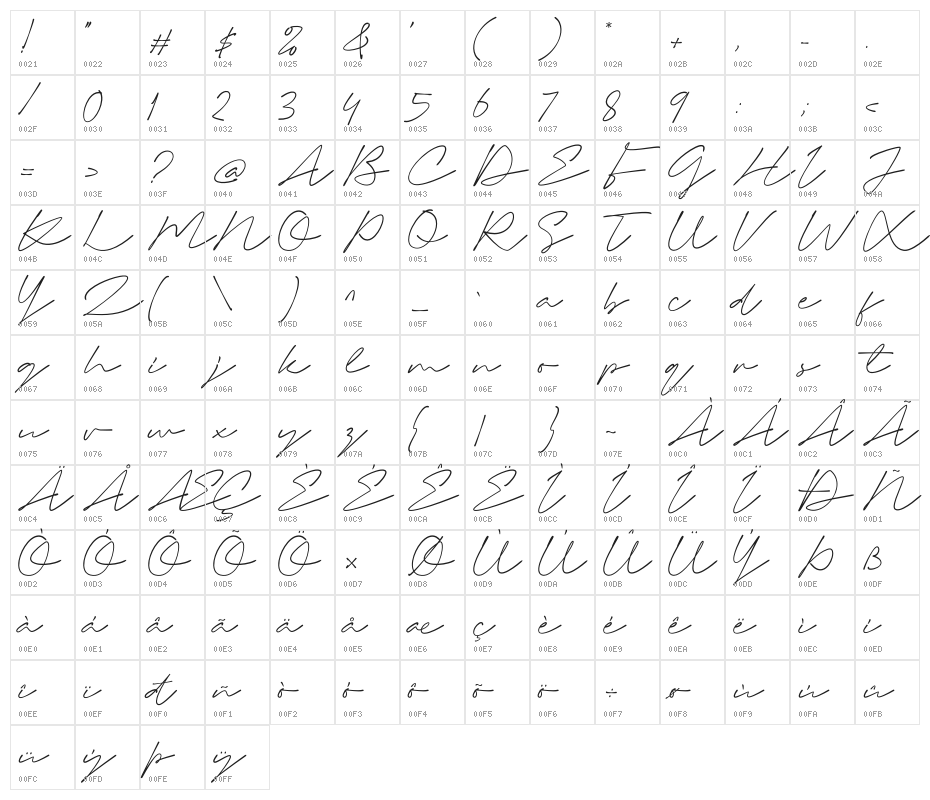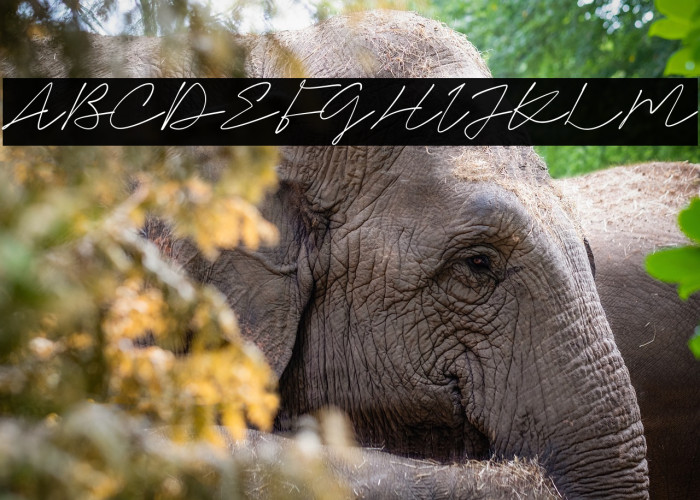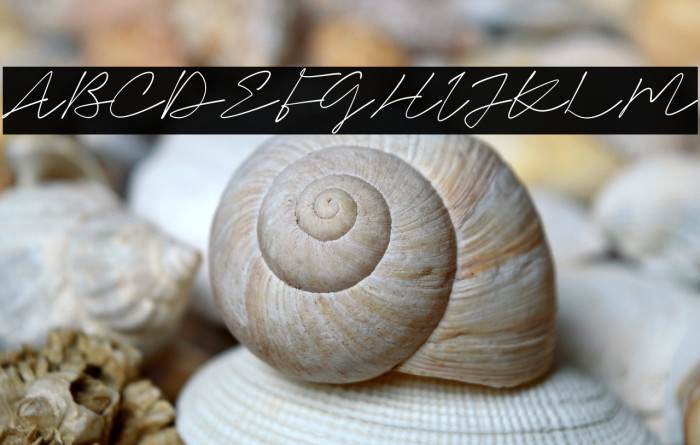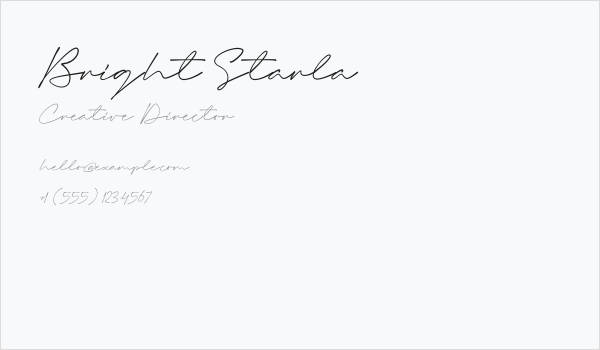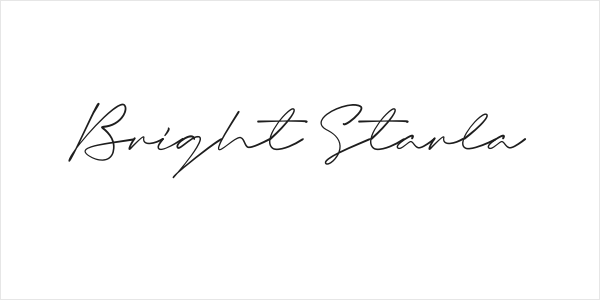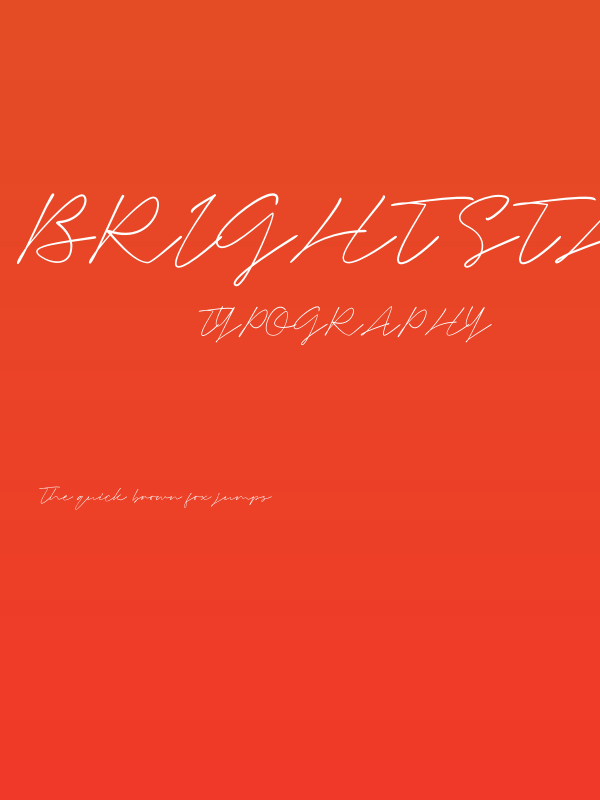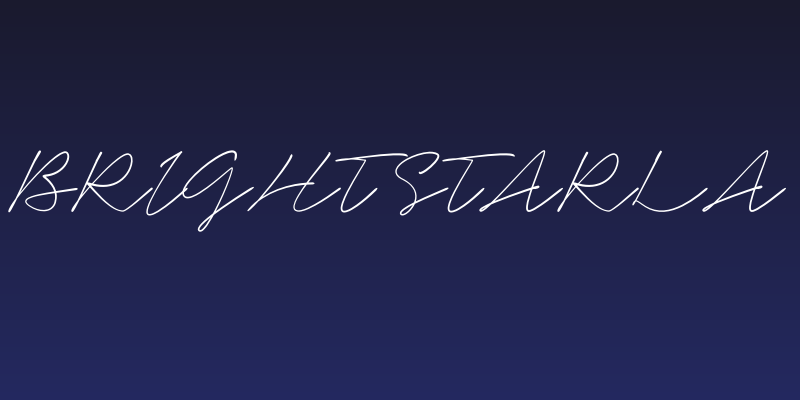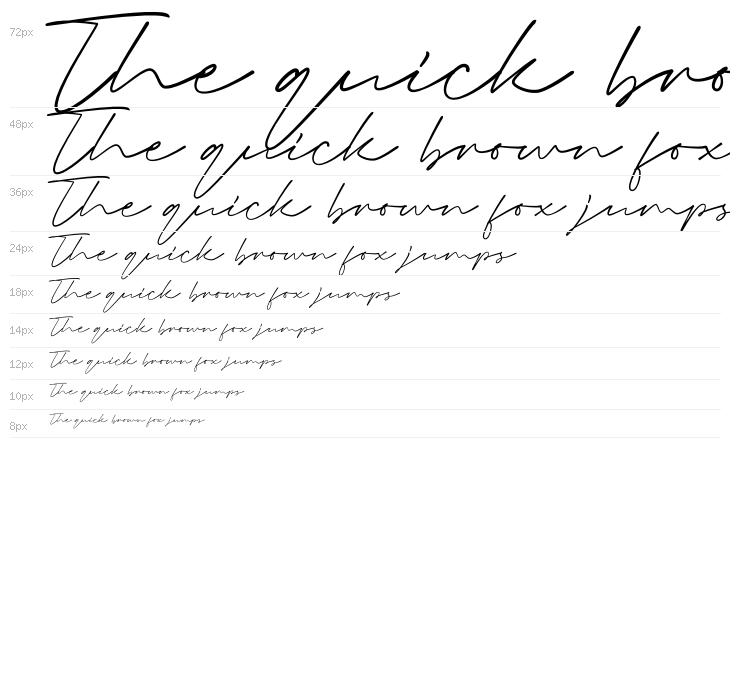
Bright Starla Font
Bright Starla Description
A flowing, cursive script font with a handwritten style, featuring smooth, connected strokes and a casual elegance.
| Use Case | Logos, Invitations |
| Proposed Projects | Invitations, greeting cards, personal branding. |